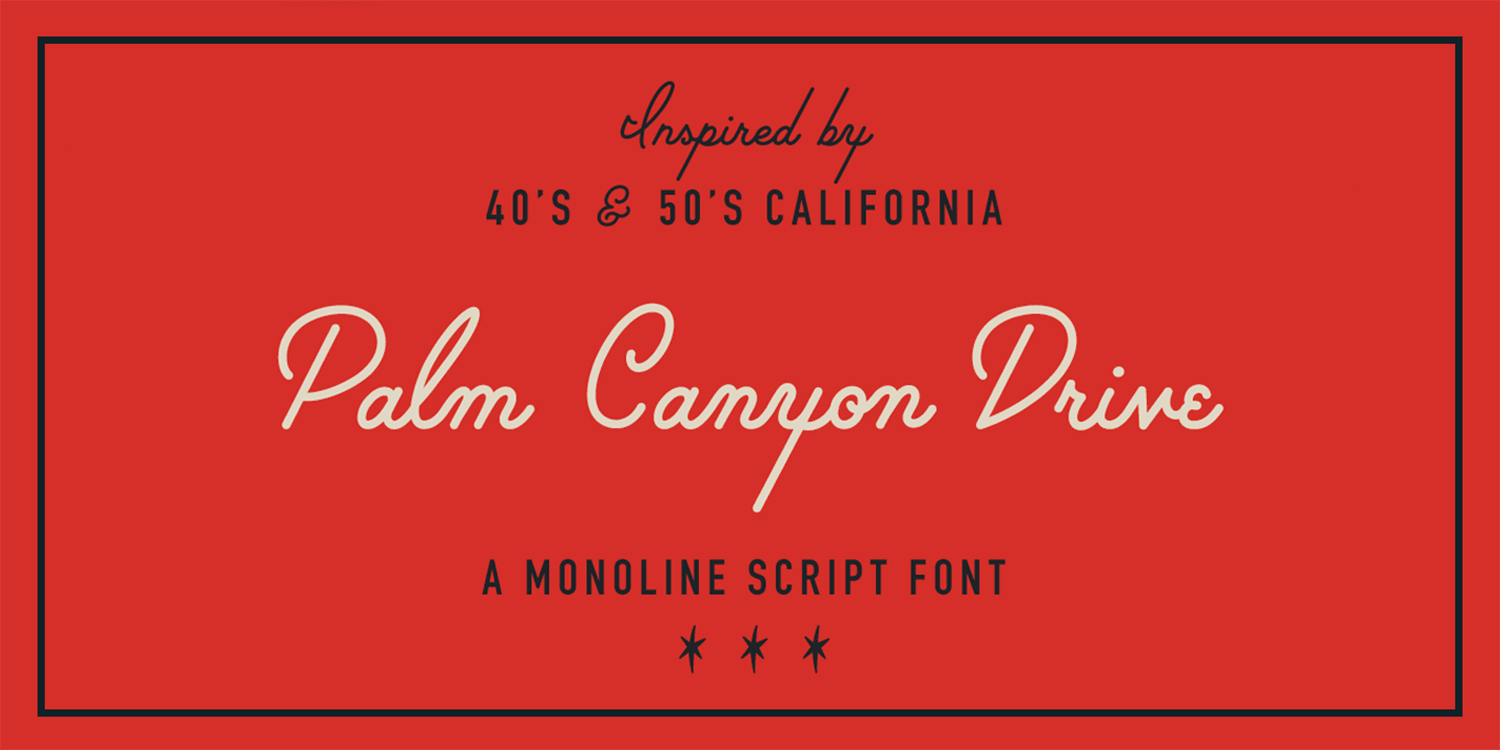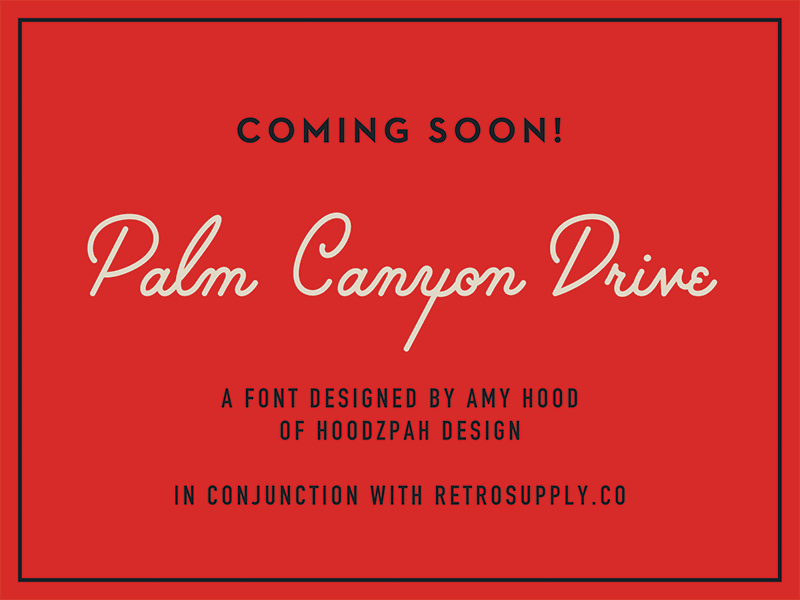
Palm Canyon Font
Palm Canyon Font - Web palm canyon drive is a monoline script inspired by retro matchbook covers, travel postcards, tiki bars and hollywood.
Web palm canyon drive is a monoline script inspired by retro matchbook covers, travel postcards, tiki bars and hollywood.